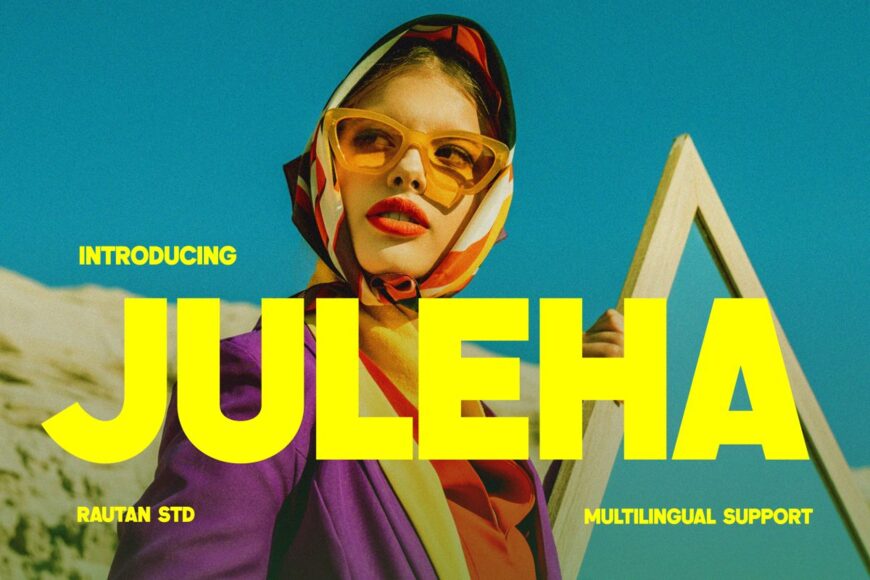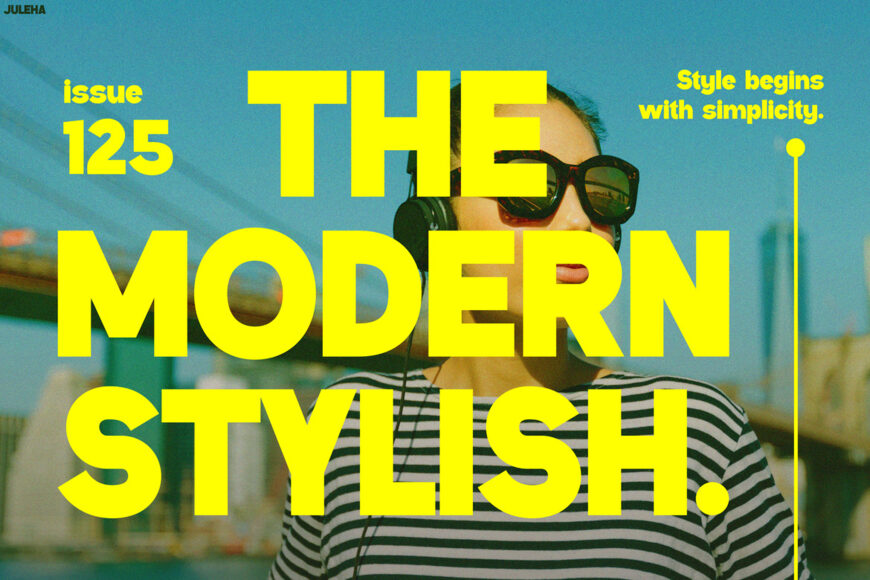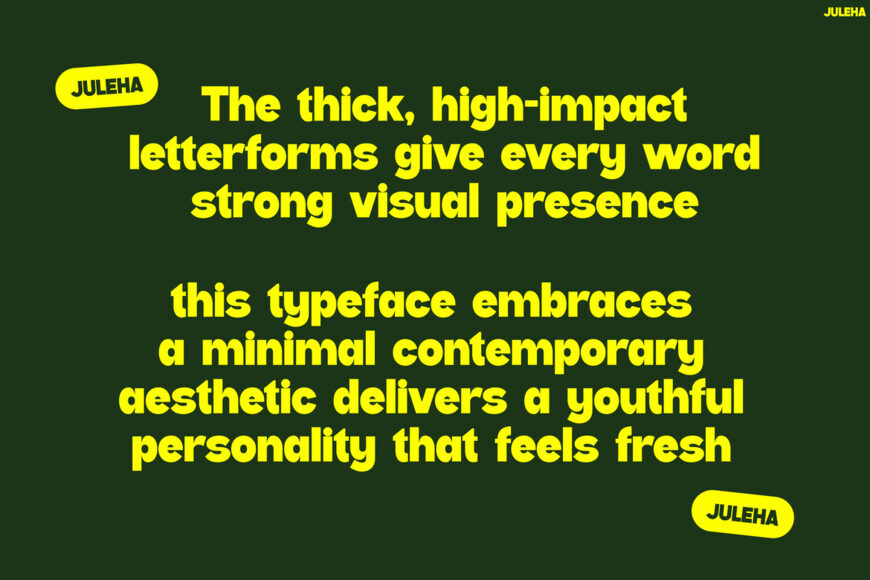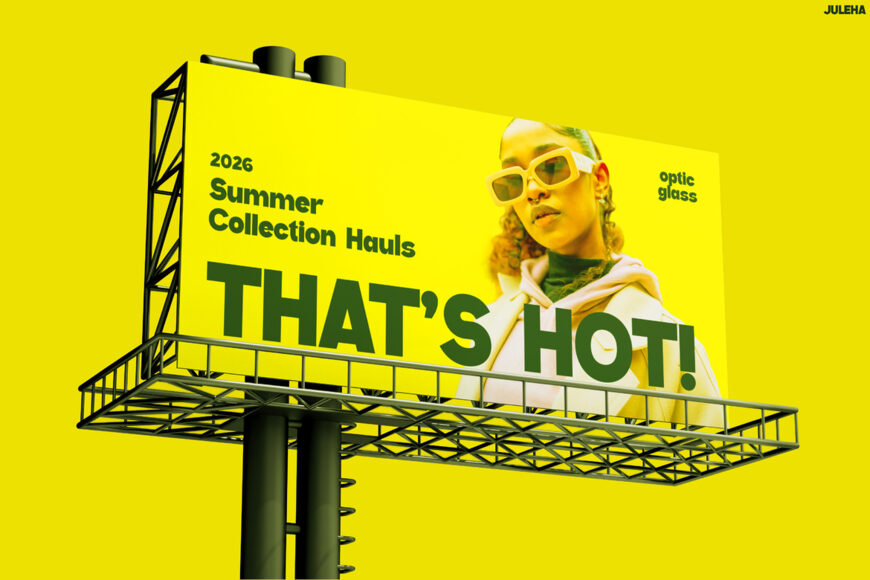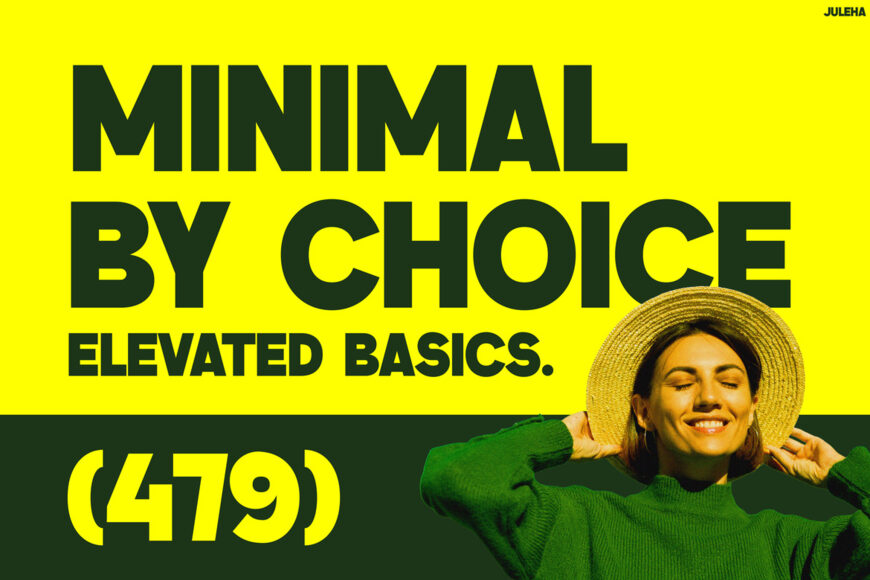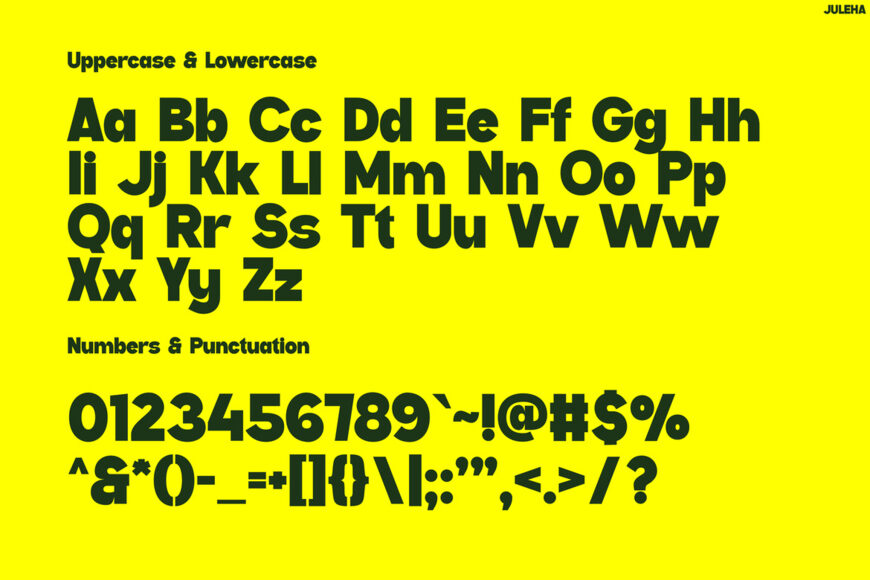
Juleha is a bold modern display font that instantly grabs attention with its clean geometric shapes and strong visual presence. Its chunky letterforms create a contemporary aesthetic that feels fresh, stylish, and highly memorable.
Unlike ordinary display fonts, Juleha balances boldness with excellent readability, making every headline stand out effortlessly. As a result, your designs become more engaging while maintaining a clean and professional appearance.